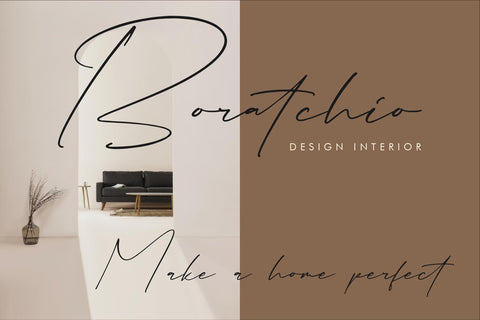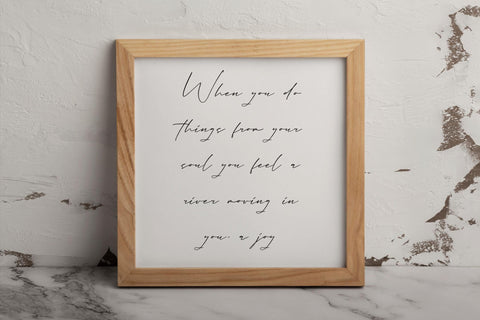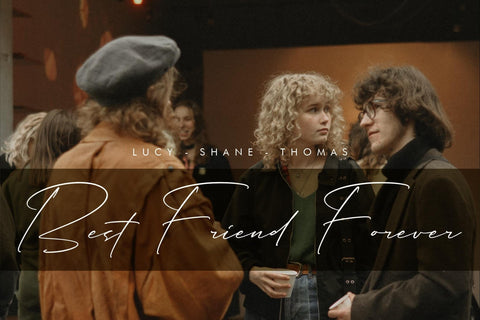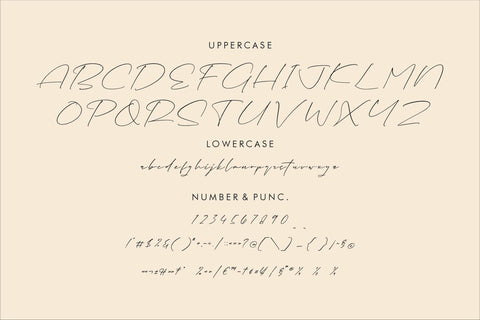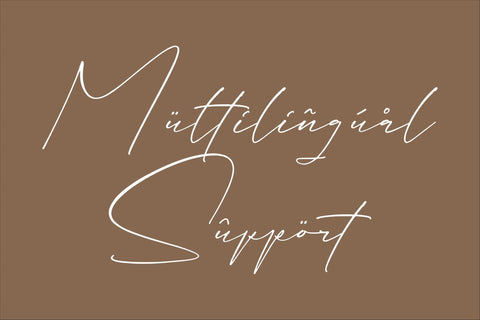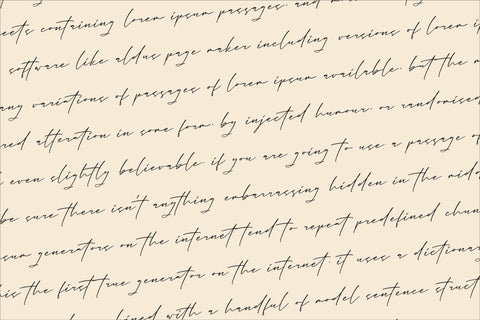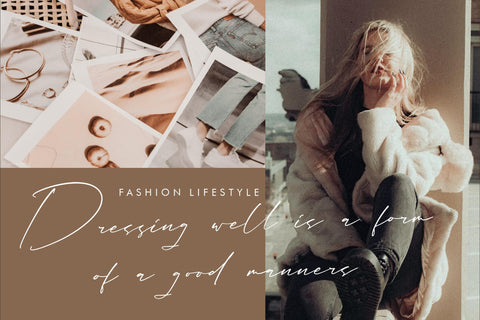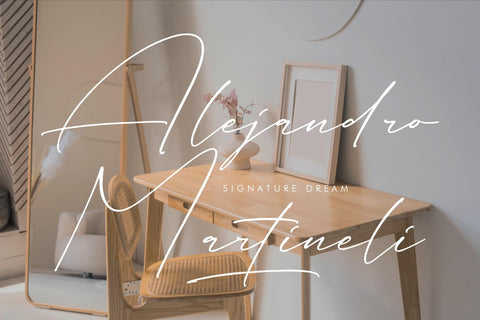
Bernathia Andalissa - Stylish Signature Font
Proudly present Bernathia Andalissa - Stylish Signature Font , created by Storytype,
A luxury script that has own unique style & modern look.